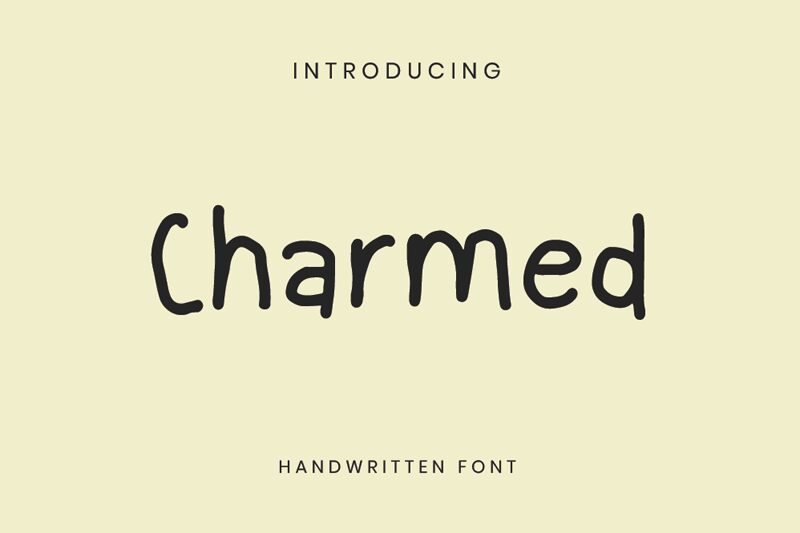
Charmed HF font family by Just Handwritten Font is a free handwritten font family that encapsulates a warm, approachable, and informal style. Its organic and natural look makes it shine with legibility and readability despite its playful appearance. Relaxed and inviting, it is perfect for a variety of casual projects. The family consists of 2 different font styles that users can choose from to meet their needs.